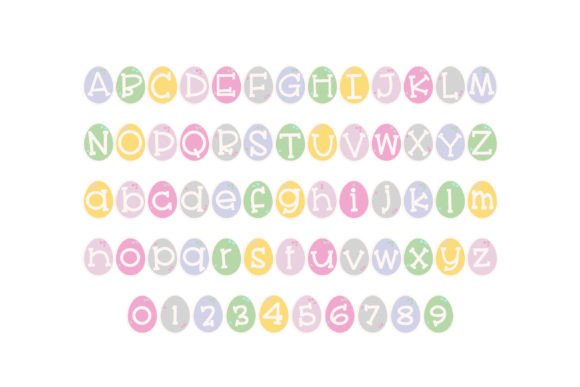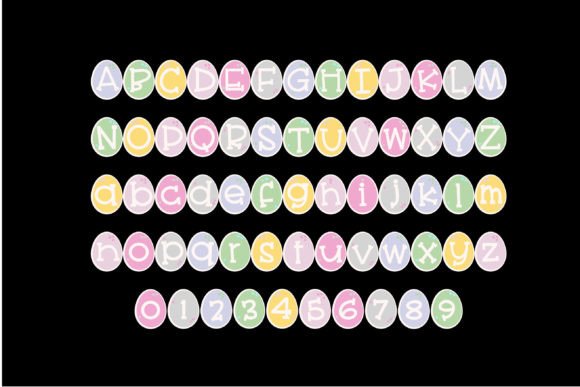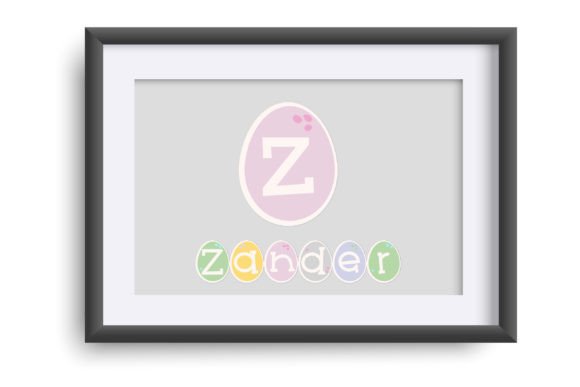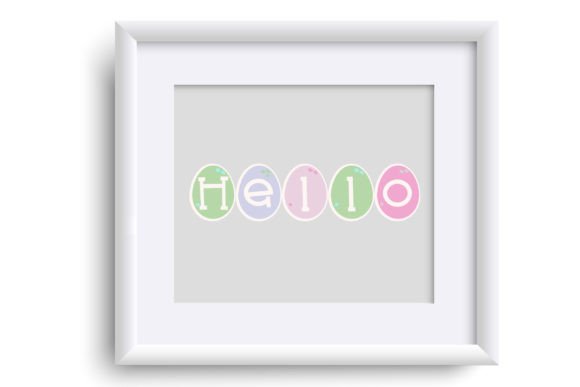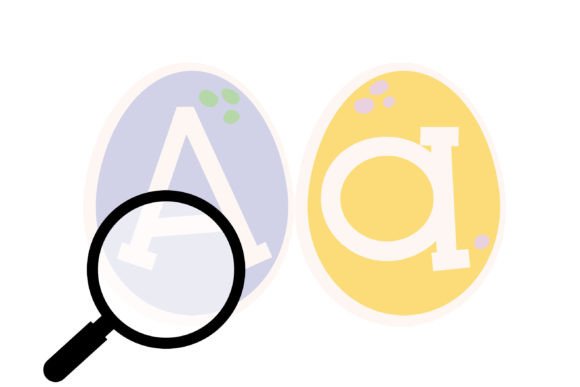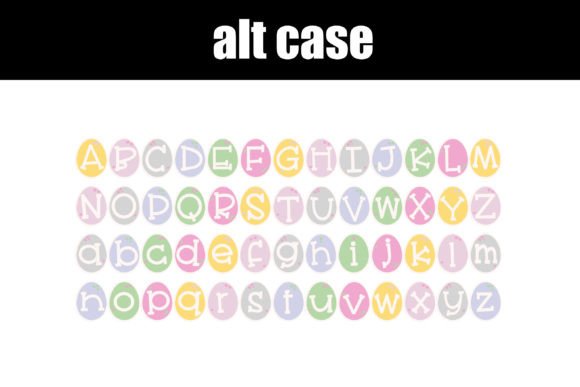
Introduction to Egg-cellent Too Font
As a designer, have you ever found yourself scrolling through a sea of fonts, searching for the perfect one to bring your creative project to life? Perhaps you’re working on an Easter-themed design and need a font that’s as playful as it is festive. I’ve been there too, and that’s why I’m excited to share with you the delightful Egg-cellent Too Font.
This charming and colorful font is a game-changer for designers looking to add a touch of whimsy to their designs. With its pastel hues and whimsical patterns, Egg-cellent Too Font is the perfect addition to your holiday design collection. Whether you’re creating Easter cards, invitations, or social media graphics, this font is sure to bring a smile to your face and a pop of color to your design.
What sets Egg-cellent Too Font apart is its high-quality design and PUA encoding, making it effortless to access all glyphs and swashes. Plus, with a transparent background, you can easily incorporate this font into your designs without worrying about any unwanted background clutter. Get ready to elevate your designs with the Egg-cellent Too Font!
Key Features of Egg-cellent Too Font
- Unique, hand-drawn style that adds a touch of whimsy and personality to any design
Honest Review: Egg-cellent Too Font
I recently had the chance to experiment with the Egg-cellent Too Font, and I must say it’s a great addition to any designer’s toolkit. As a design resource, it offers a high quality and unique touch to creative projects.
Here are some aspects that I found particularly Egg-cellent: ✨
- High-quality vectors with transparent background options, making it perfect for designing on a variety of backgrounds.
- A wide range of creative applications, from posters to social media graphics.
- Easy to customize and edit to fit your design needs.
However, I did encounter some limitations: ⚠️
- The font selection is relatively limited, with only a handful of styles to choose from.
Overall, I’m impressed with the Egg-cellent Too Font’s potential, but I think it could benefit from a bit more development and refinement. Still, it’s definitely worth checking out for designers looking to add some unique flair to their work.
Egg-cellent Too Font is ideal for designing graphics, logos, and typography for various creative projects, including branding, marketing materials, and more.